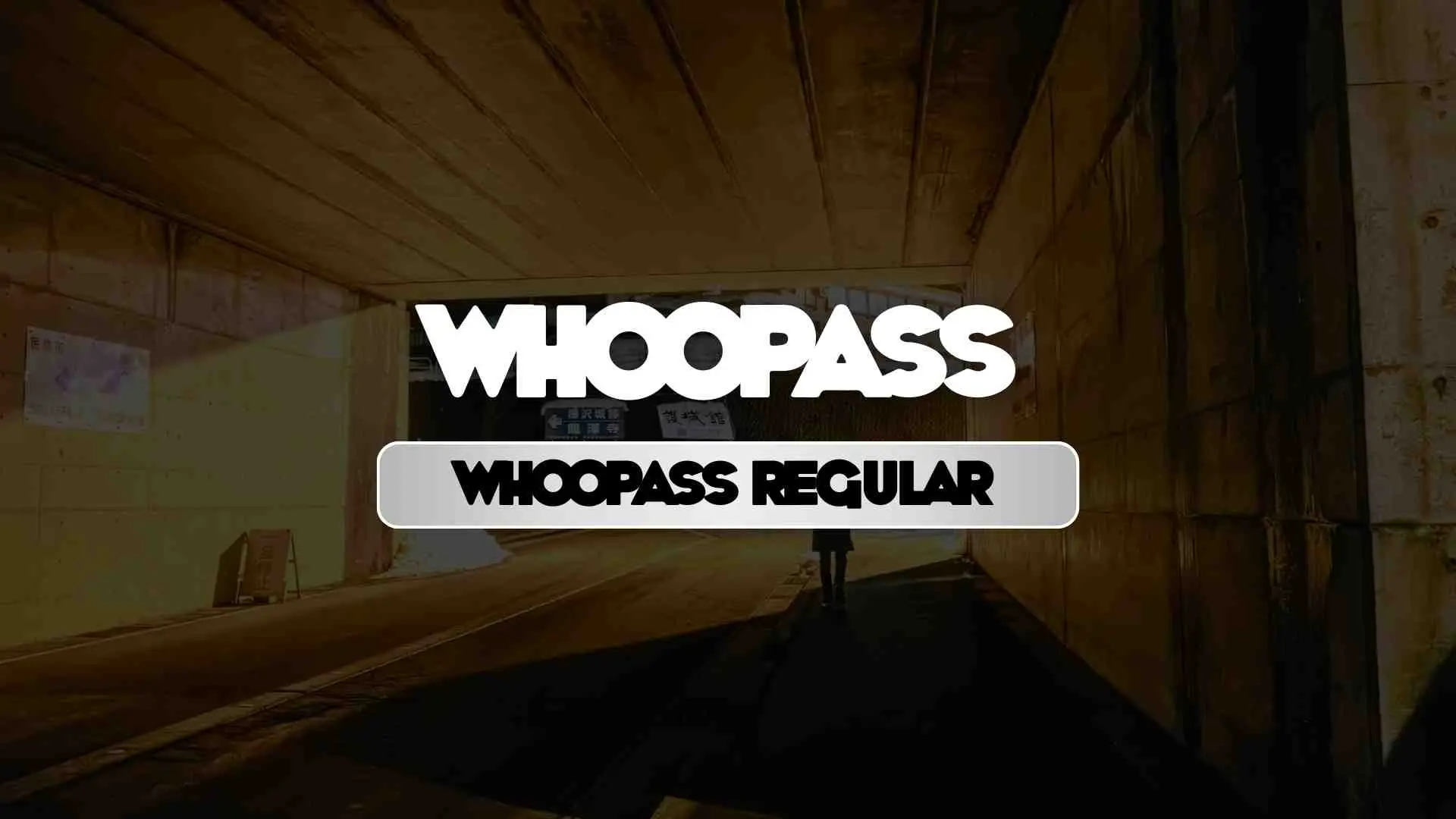
The font WhoopAss Regular, designed by Nate Piekos, falls under the Display, Sans Serif category & WhoopAss font family. Its smooth, flowing letterforms make it a versatile choice for projects that require both elegance and readability. WhoopAss is particularly well-suited for Branding, Video Game Design, Apparel, Logos, Comic Books, Graphic Novels and Merchandise. With its balance of simplicity and decorative appeal, this font brings a polished touch to both personal and professional designs.